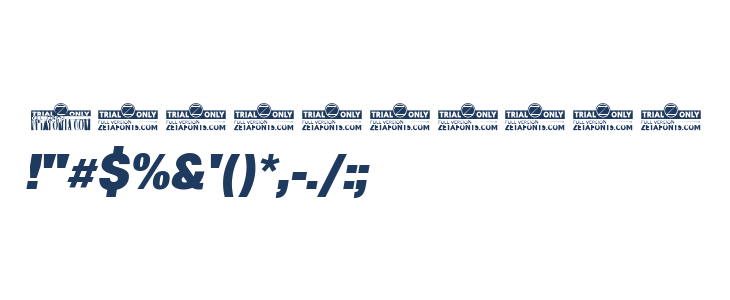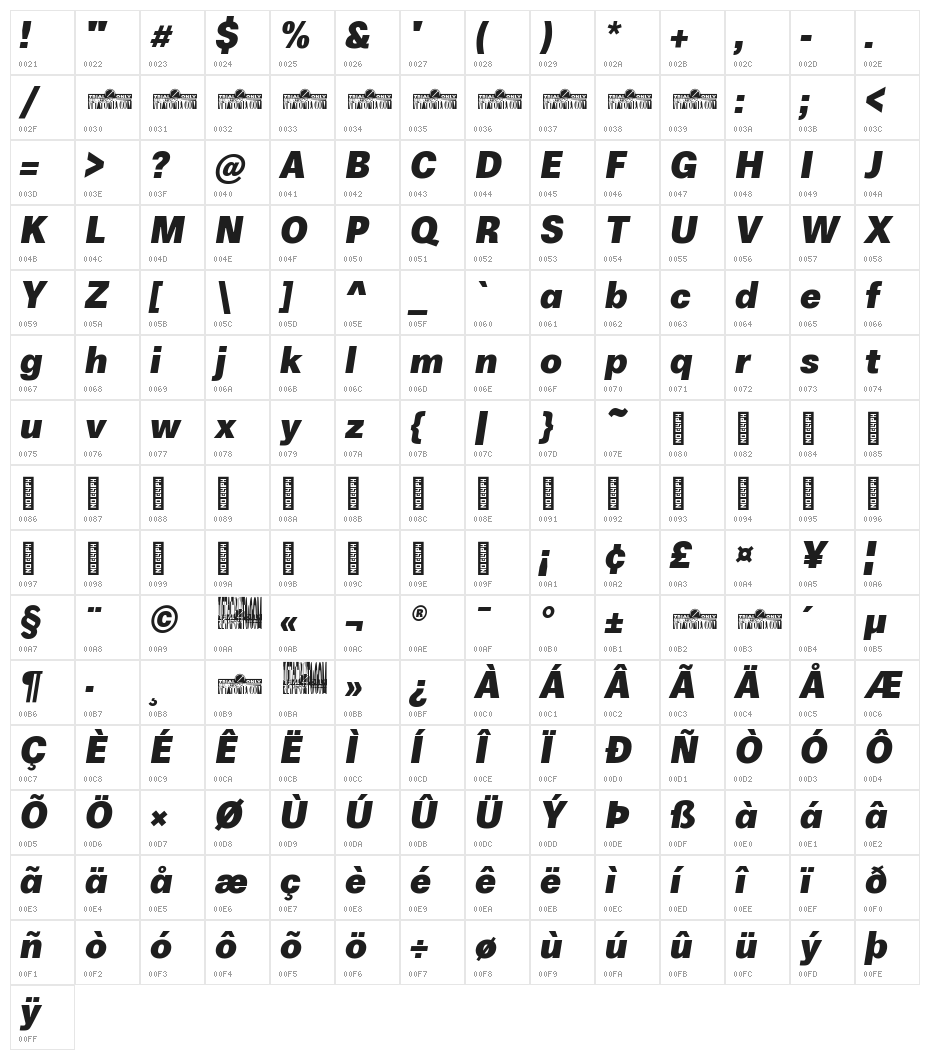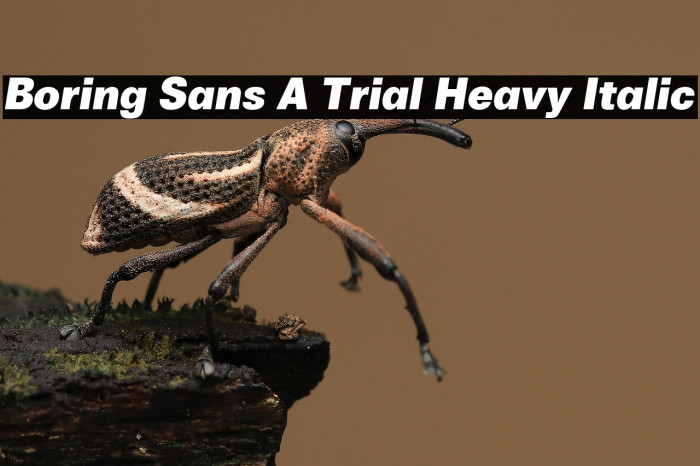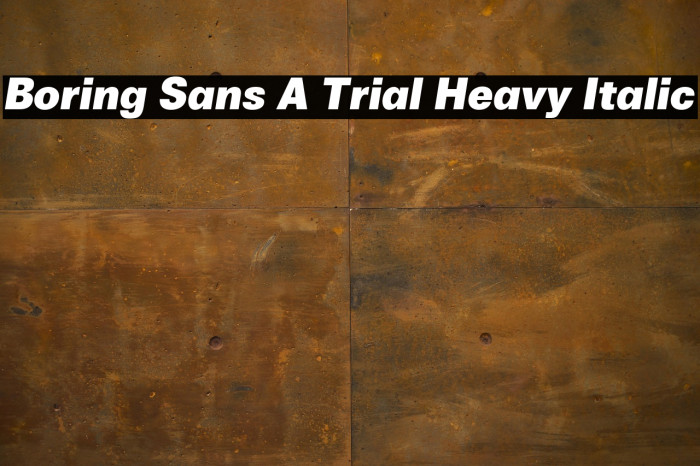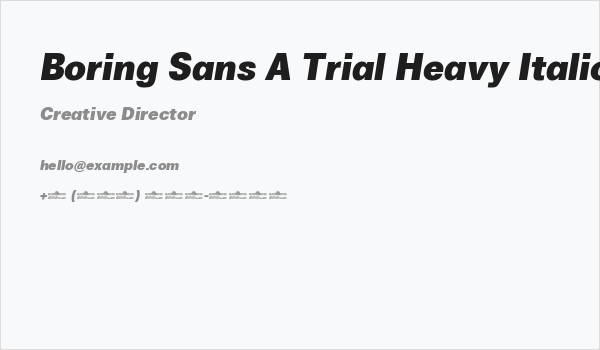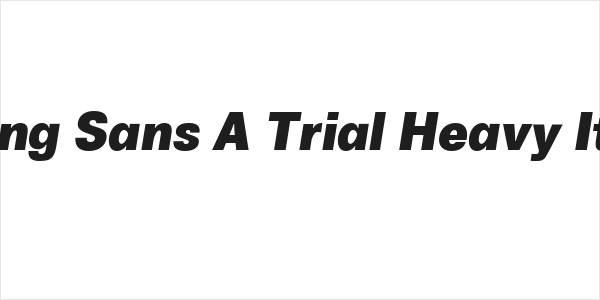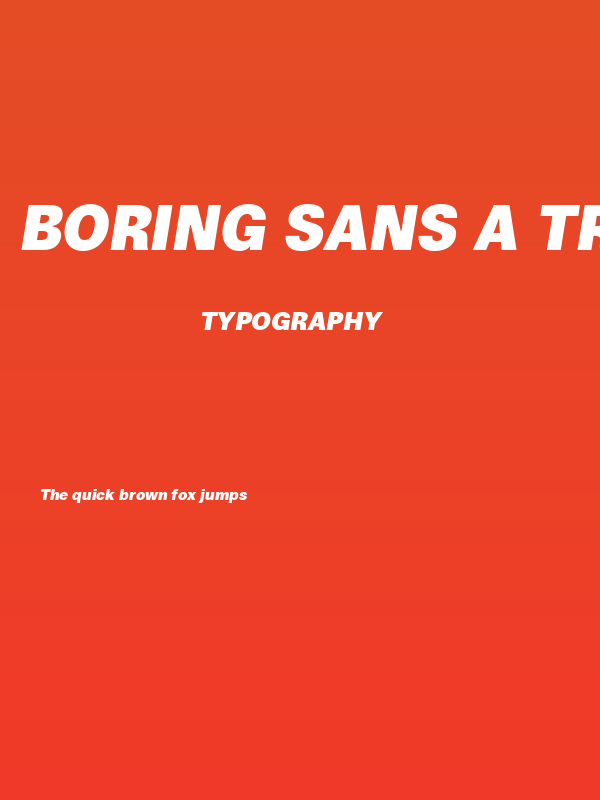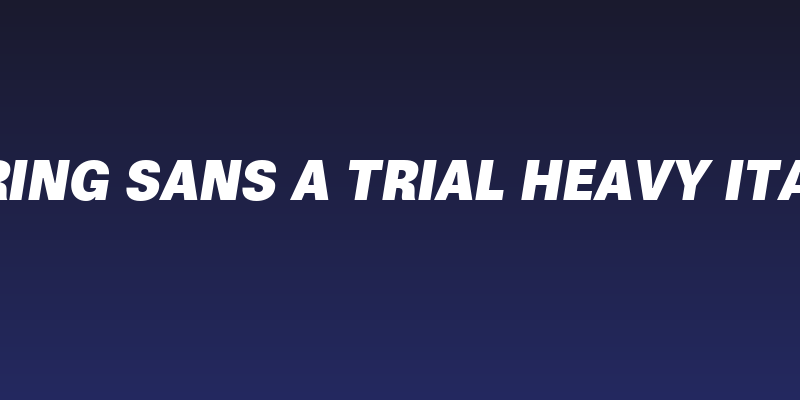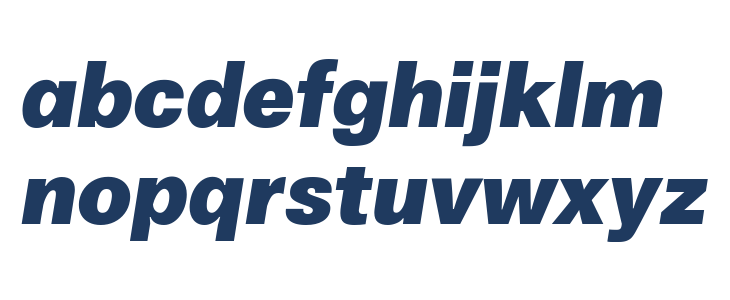
Boring Sans A Trial Heavy Italic Font
Boring Sans A Trial Heavy Italic Description
This font features a bold and heavy appearance with an italic slant, giving it a strong and dynamic presence. The characters are sans-serif, providing a clean and modern look. The letters are well-defined with consistent stroke widths, contributing to a uniform and cohesive style. The font maintains a balanced proportion between height and width, ensuring readability while conveying a sense of strength and stability. The italic angle adds a sense of movement and urgency, making it suitable for impactful headlines and attention-grabbing text. The overall design is straightforward yet assertive, making it versatile for various design applications.
| Proposed Projects | Ideal for headlines, advertising, branding, and any project requiring a strong visual impact. |